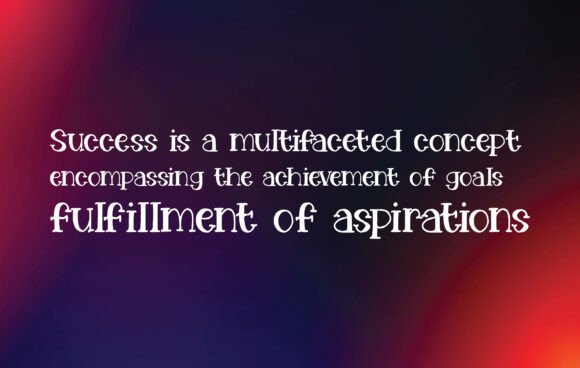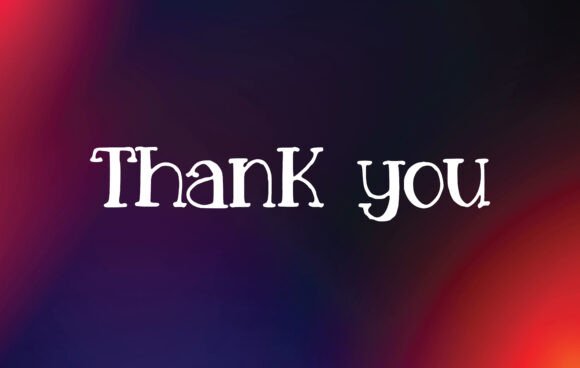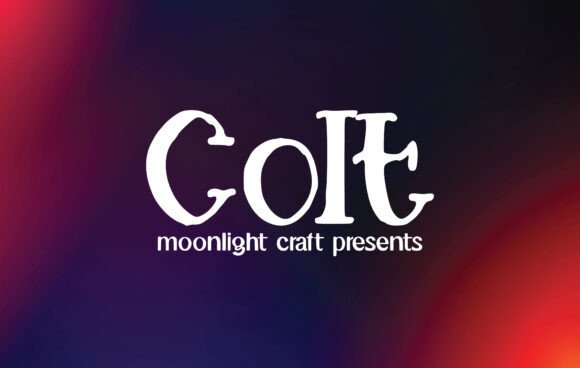
Introducing Colt Font: Elevate Your Creative Projects with Elegance and Sophistication
In the world of typography, a font can make all the difference in bringing your creative ideas to life. If you’re a designer, crafter, or simply someone who appreciates beautiful handwritten fonts, then you’re in luck. Meet Colt Font, a lovely and beautiful handwritten font that has the potential to take your creative projects to the highest level.
What Makes Colt Font Special?
Colt Font is not just another font; it’s a game-changer. Its elegant and sophisticated design makes it perfect for creating eye-catching logos, branding materials, and quotes that will leave a lasting impression on your audience. With Colt Font, you can add a touch of personality and whimsy to your projects, setting them apart from the rest.
Whether you’re a professional designer or a crafter looking to add a personal touch to your projects, Colt Font is the perfect choice. Its versatility and flexibility make it suitable for a wide range of applications, from:
- Quotes and posters
- Invitations and stationery
- Craft projects, such as handmade cards and scrapbooking
Why Choose Colt Font?
So, what sets Colt Font apart from other fonts? Here are just a few reasons why Colt Font is a top choice for designers and crafters:
- Unique and eye-catching design: Colt Font’s elegant and sophisticated design makes it perfect for creating visually appealing projects that will grab attention.
- High-quality and versatile: Colt Font is designed to be versatile and flexible, making it suitable for a wide range of applications and projects.
- Easy to read and understand: Despite its elegant design, Colt Font is easy to read and understand, making it perfect for body text and quotes.
- Supports multiple languages: Colt Font supports multiple languages, making it a great choice for designers and crafters working on international projects.
Tips for Using Colt Font
To get the most out of Colt Font, here are a few tips to keep in mind:
- Use it sparingly: While Colt Font is beautiful, it’s best to use it sparingly to avoid overwhelming your audience. Use it for headings, titles, or quotes to add emphasis and visual interest.
- Pair it with other fonts: Colt Font pairs well with other fonts, so don’t be afraid to experiment with different combinations to create visual interest and contrast.
- Adjust the size and color: Experiment with different sizes and colors to find the perfect combination for your project. Colt Font looks great in bold and bright colors, as well as more subtle and muted tones.
In conclusion, Colt Font is a beautiful and elegant handwritten font that has the potential to take your creative projects to the highest level. Its unique and eye-catching design, versatility, and flexibility make it perfect for designers and crafters looking to add a touch of personality and whimsy to their projects. Whether you’re creating logos, branding materials, quotes, or craft projects, Colt Font is the perfect choice. So why wait? Give Colt Font a try today and see the difference it can make in your creative projects!